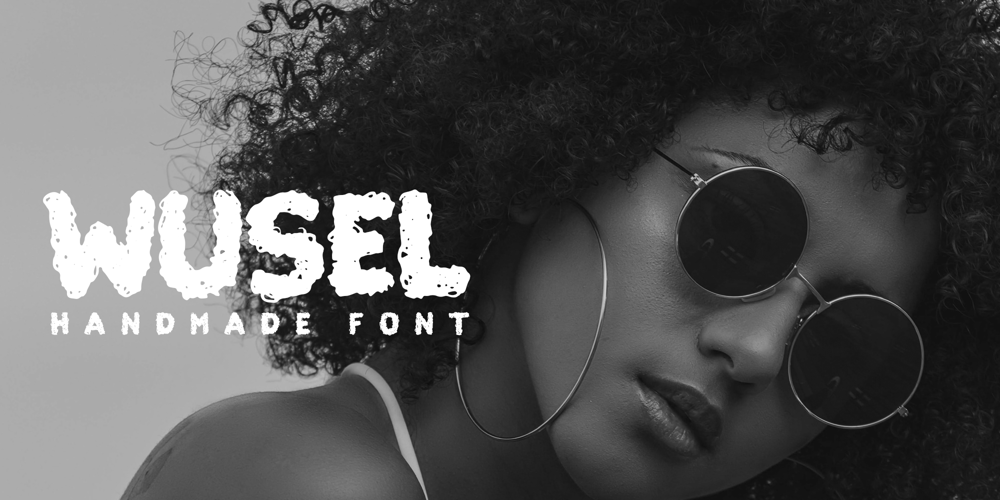
Wusel Font Family was designed by Boris Schrage and published by Loreley Design. Wusel contains 1 styles and family package options. Named by the german word for bustling around, to scurry or swarming the Wusel has a very active appearance. It’s completely handmade and doodely because of all the crisscrossing lines, which forms big, bold, sanserif letters. These are very good to read wether they’re big or small. Just a very playful, fun and simple font to use for headlines, tags and all kind of things which need al little attention.